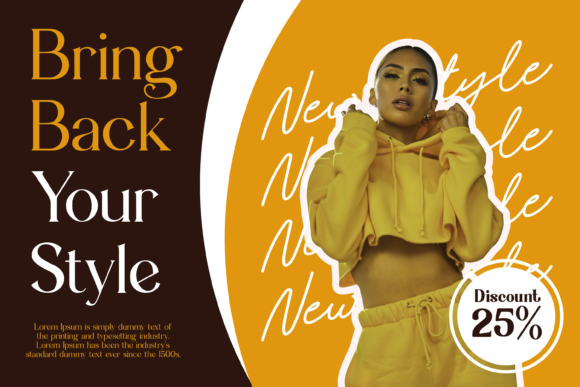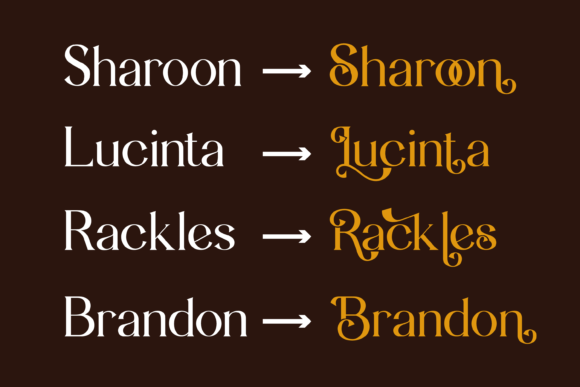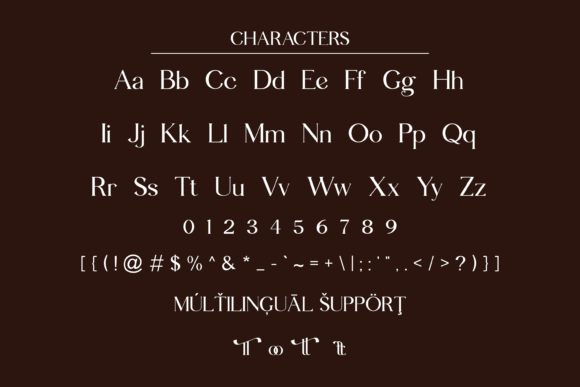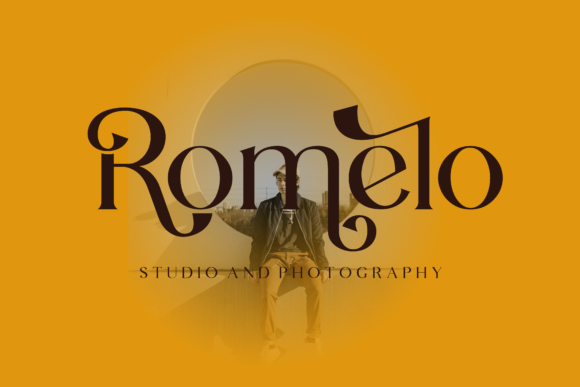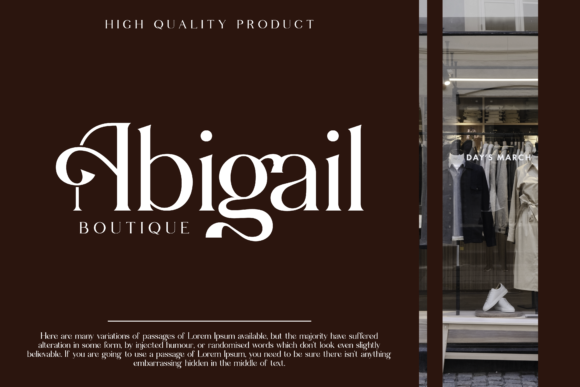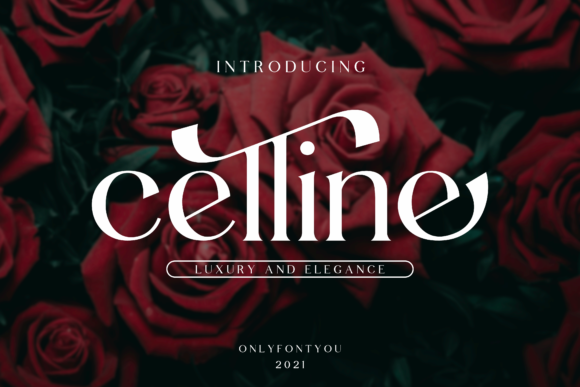
Introducing Celline Font: Elevate Your Designs with Elegance and Sophistication
Are you on the hunt for a font that exudes elegance, sophistication, and a touch of authenticity? Look no further than Celline Font, a ravishing serif font that is sure to capture your heart. With its classic charm and modern flair, Celline is the perfect choice for designers and crafters seeking to create stunning visual content.
The Beauty of Celline Font
Celline Font boasts a unique blend of traditional and contemporary elements, making it an ideal choice for a wide range of design projects. Its elegant serifs and refined lines evoke a sense of luxury and sophistication, while its clean and crisp appearance ensures excellent readability. Whether you’re working on a branding project, crafting a beautiful wedding invitation, or designing a stylish website, Celline Font is sure to impress.
One of the standout features of Celline Font is its PUA (Private Use Area) encoding. This means that you can access all of the font’s glyphs and swashes with ease, giving you unparalleled creative control. With PUA encoding, you can effortlessly navigate the font’s extensive character set, including alternate letters, ligatures, and ornaments. This feature makes it simple to add a personal touch to your designs, setting them apart from the ordinary.
Celline Font offers a world of design possibilities, limited only by your imagination. Use it to create:
- Stunning branding materials, such as logos, business cards, and letterheads
- Beautiful wedding invitations, save-the-date cards, and ceremony programs
- Elegant website headers, footers, and other typography elements
- Creative social media graphics, quotes, and inspirational posts
- Unique digital products, such as printable art, planners, and journals
Why Choose Celline Font?
With so many fonts available, why choose Celline? Here are just a few compelling reasons:
- Elegance and sophistication: Celline Font exudes refinement and poise, making it perfect for high-end designs
- Authenticity: Its classic serifs and traditional feel ensure a timeless appeal
- Versatility: Celline Font is suitable for a wide range of design projects, from print to digital
- Easy to use: PUA encoding makes it simple to access and use the font’s extensive character set
Get Ready to Fall in Love with Celline Font
In conclusion, Celline Font is a design gem that is sure to capture your heart. Its elegant and authentic style, combined with its PUA encoding and versatility, make it an ideal choice for designers and crafters seeking to create stunning visual content. Whether you’re looking to elevate your branding, create beautiful stationery, or design engaging digital products, Celline Font is the perfect choice. So why wait? Fall in love with Celline Font today and unlock a world of creative possibilities!